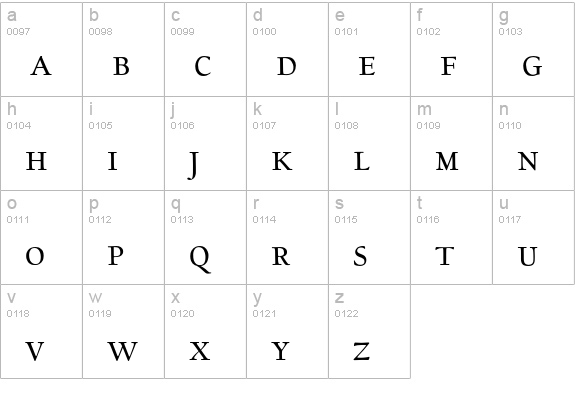
FBCalifornian-Expert Font Details
Introducing FBCalifornian-Expert font, a refined and elegant typeface that exudes sophistication and charm. Designed with expert precision, this font features intricate details and graceful curves that lend a touch of classic beauty to any design project. With its timeless appeal and versatility, FBCalifornian-Expert font is the perfect choice for creating stunning headlines, invitations, logos, and more. Whether you're working on a high-end branding project or a creative personal endeavor, this font will elevate your work to the next level. Best of all, FBCalifornian-Expert font is completely free to download at FontsMarket.com. Take advantage of this incredible offer and add this exquisite font to your collection today. Experience the beauty and elegance of FBCalifornian-Expert font in your designs and make a lasting impression with every project you create.